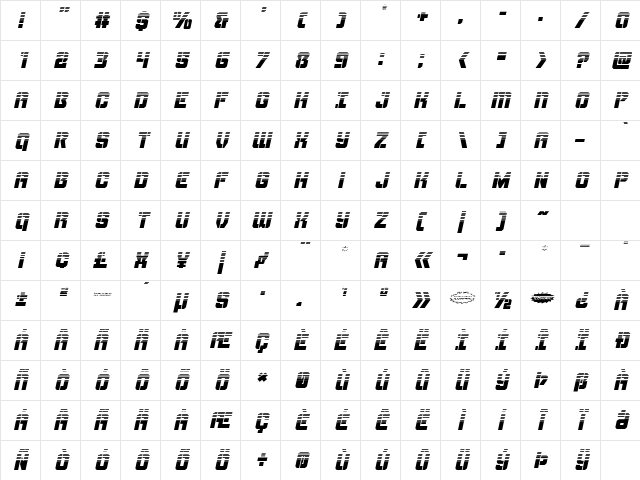
Thunder Trooper Halftone Italic Free Font
Thunder Trooper Halftone Italic
Complete Thunder Trooper Halftone Italic glyph index. Displaying only characters natively supported by Thunder Trooper Halftone Italic font.
Design Context for Thunder Trooper Halftone
Thunder Trooper Halftone is a composed and adaptable typeface that performs quietly and consistently across a wide range of design contexts. The slanted form adds forward momentum and visual energy.
Pro Tip: Use Thunder Trooper Halftone for emphasis, pull quotes, and subheadings where its slanted energy can add rhythm to the layout.